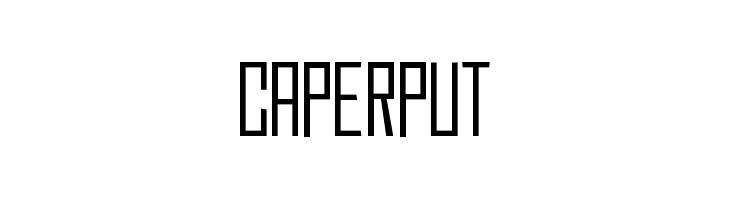
A bold, geometric font with a modern, condensed style.
A semi-bold, italic serif font with elegant and dynamic styling.
A bold, italicized font with a futuristic and dynamic style.
A bold, expanded geometric font with a modern and technical style.
A bold, dynamic script font with a modern and flowing style.
A geometric and classic font with clean lines and rounded edges, offering a modern yet traditional look.
A modern, italic sans-serif font with a sleek and dynamic style.
A bold, geometric hollow font with a modern, digital aesthetic.
Playful handwritten font with tall, narrow letters.
A bold, intricate Blackletter-style font with sharp, angular lines and dramatic curves.